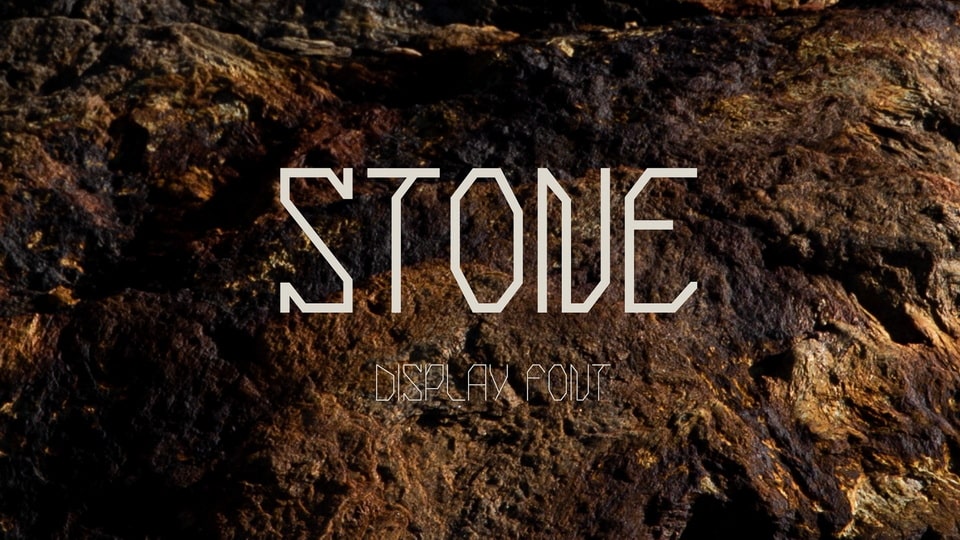
Download Stone font, a display typeface inspired from stone tools. Its geometric shapes and minimal aesthetic make stone font perfect to be used for bold big titles.
Designer: Andrea Siracusa